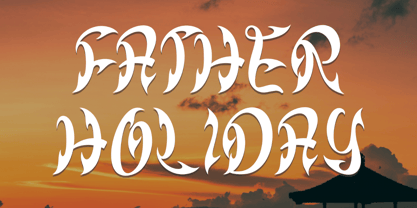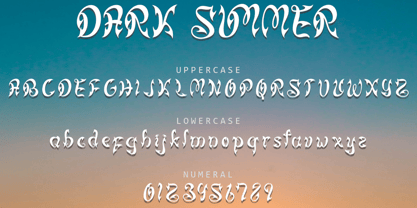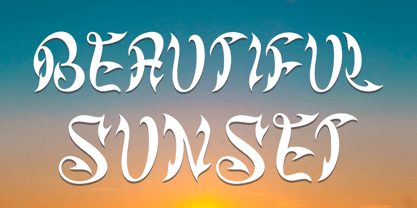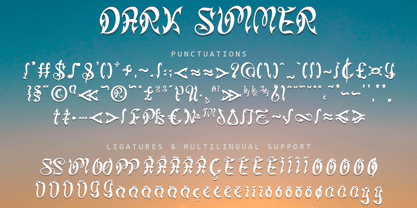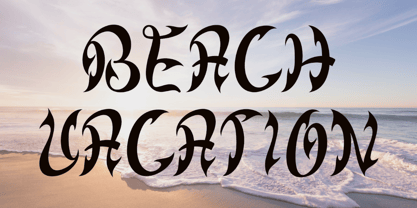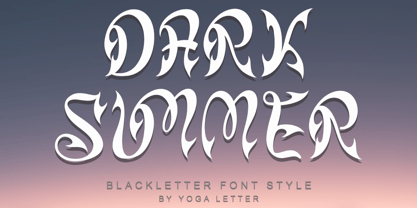
Dark Summer
by Yoga Letter
The Dark Summer Font Family was designed by Isroni Yoga Prasetya and published by Yoga Letter. Dark Summer contains 1 styles.
"Dark Summer" is a unique and elegant blackletter font. It comes with capital letters, lowercase letters, ligatures, numbers, punctuation, and multilingual support. It is perfect for use in summer, banners, posters, prints, halloween, christmas, father's day, 4th of july, etc.
Designers: Isroni Yoga Prasetya
Publisher: Yoga Letter
Foundry: Yoga Letter
Design Owner: Yoga Letter